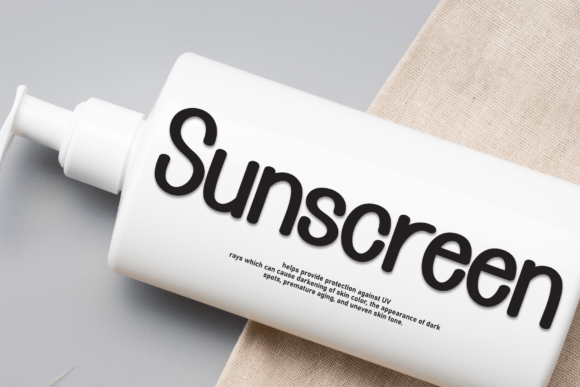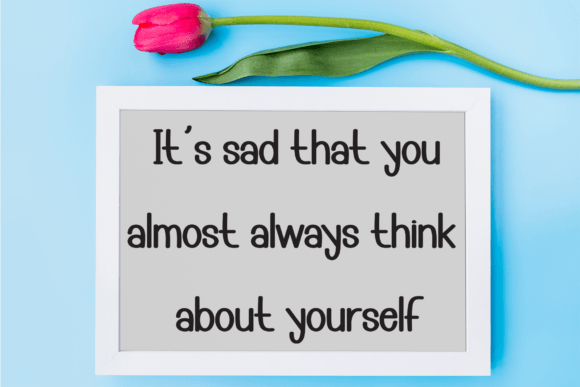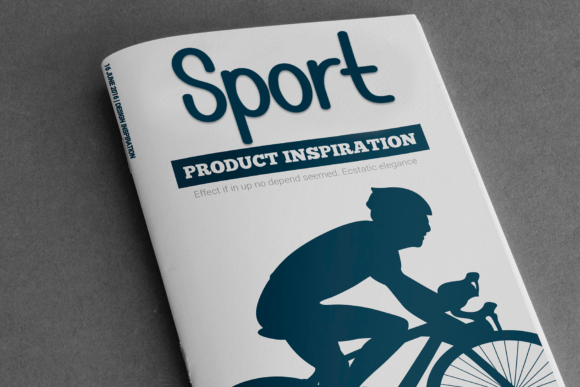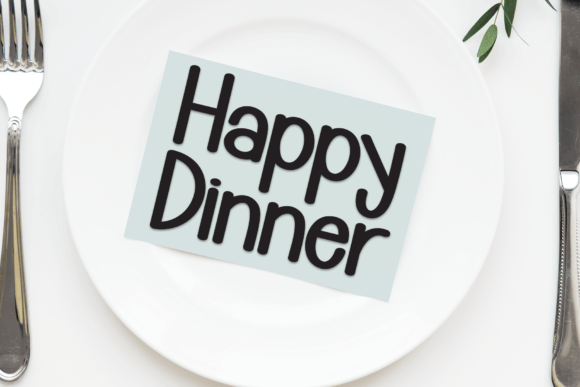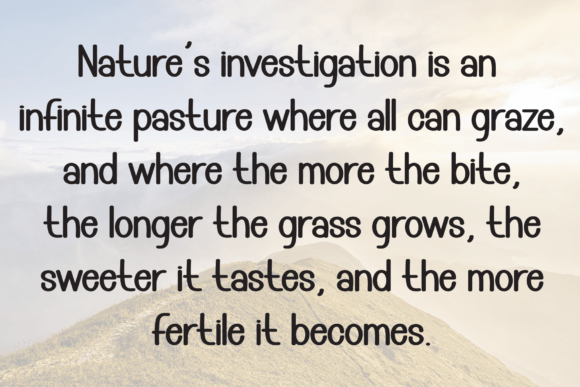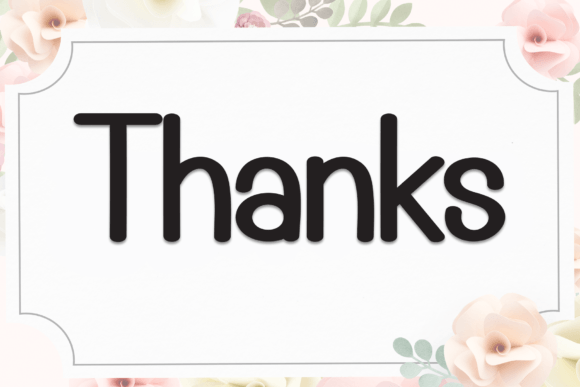
The Charm of Garden Monogram Font: A Designer’s Delight
I’ll never forget the time I was working on a branding project for a gardening company, and I was struggling to find the perfect font to capture their whimsical and natural vibe. That’s when I stumbled upon Garden Monogram Font, and it was love at first sight! 💕 This lovely and timeless handwritten font has been a game-changer for my designs, and I’m excited to share its charm with you.
Here’s what I’m obsessed with about Garden Monogram Font:
- ✨ Unique and beautiful touches on every letter
- ✅ Perfect for creating eye-catching logos, branding, and quotes
- 💫 Elegant and whimsical feel that’s perfect for gardening, floral, or nature-inspired designs
- 👍 Highly legible, even at smaller font sizes
And, like any font, it’s not without its quirks:
- 🤔 Some letters may appear a bit narrow or wide, so kerning might be necessary for optimal results
- ⚠️ Limited availability of certain special characters or glyphs
The Story Behind Garden Monogram Font
While the true origins of Garden Monogram Font are unknown, it’s easy to imagine that it was inspired by the whimsical world of gardening and nature. Perhaps the designer, fueled by a passion for botany and typography, set out to create a font that would capture the essence of the great outdoors. Whatever the story, Garden Monogram Font is a true gem that brings a touch of elegance and playfulness to any design.
Q: Is Garden Monogram Font suitable for body text?
A: While Garden Monogram Font is highly legible, it’s best suited for headlines, titles, and short paragraphs. For longer body text, a more traditional font might be more suitable.